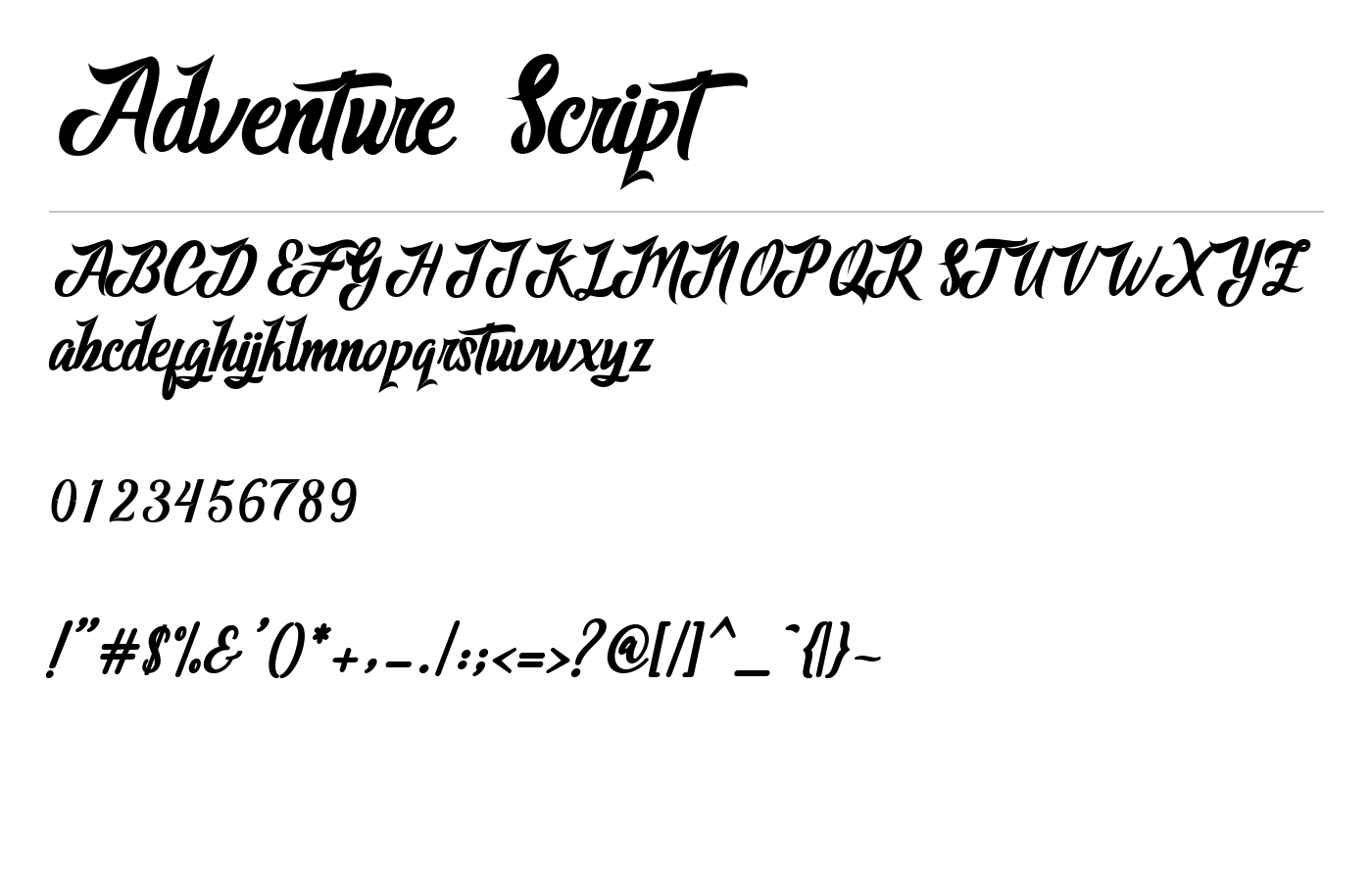
Adventure Script is a bold, dynamic script font with a lively calligraphic style that features sharp, sweeping strokes and a strong presence. Its distinctive letterforms combine elegant curves with energetic flair, making it ideal for branding, logos, and headlines that want to convey creativity and confidence with a touch of vintage adventure. This font works beautifully for projects looking to stand out with a handcrafted, artistic feel.
Adventure Script Font
About Adventure Script Font
| Font family | Adventure Script Font |